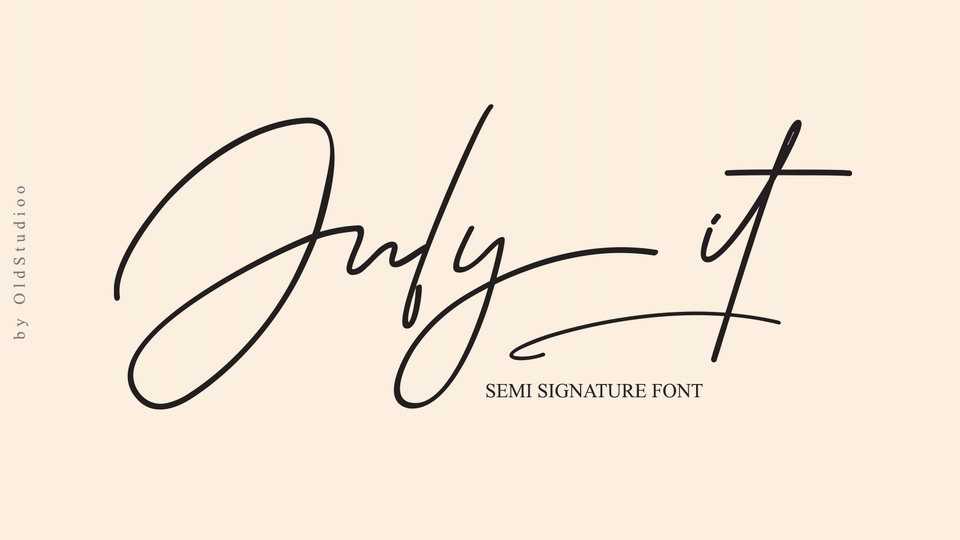
July It Script Font › Fontesk – Download Grátis
Download July It font, a beautiful signature style script that will add a natural touch to your design. The font has smooth wet ink texture, so would be perfect for all types of printing techniques+you can do embroidery, laser cut, gold foil etc.
Designer: Analogous